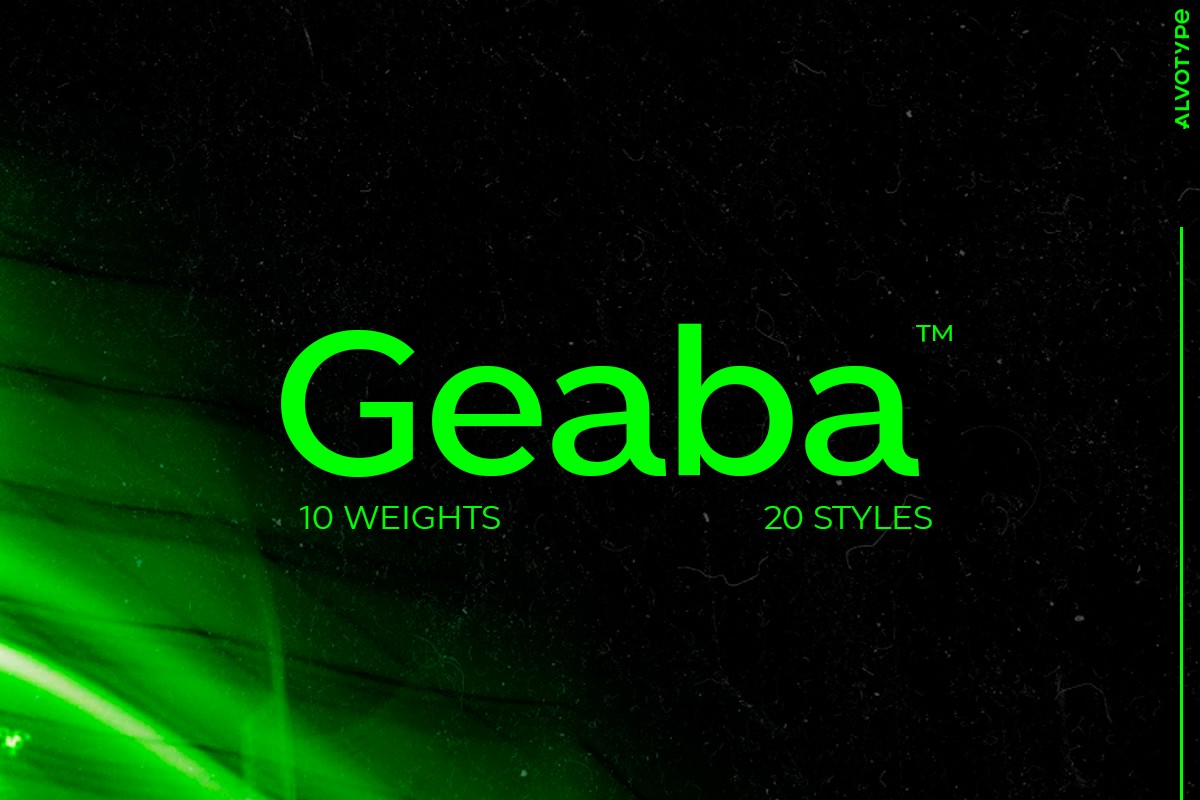
Geaba | Font-family [50% OFF]
Geaba™ is a structural, geometric-grotesque sans-serif font family with 20 styles. Bringing impact as a premise, Geaba™ is clean, elegant, readable and versatile, either for small texts or headlines.